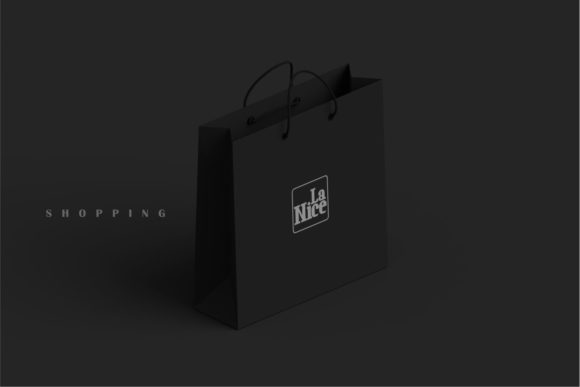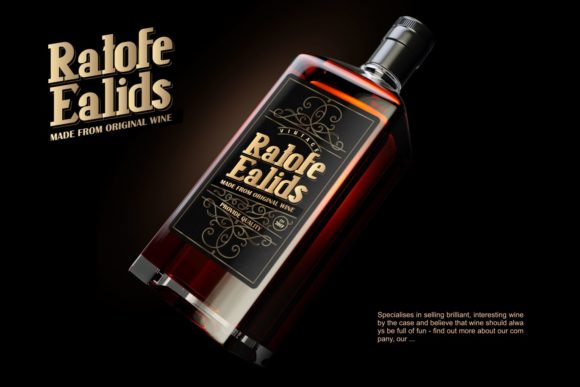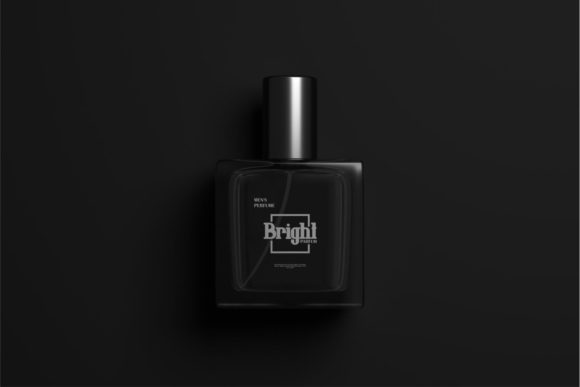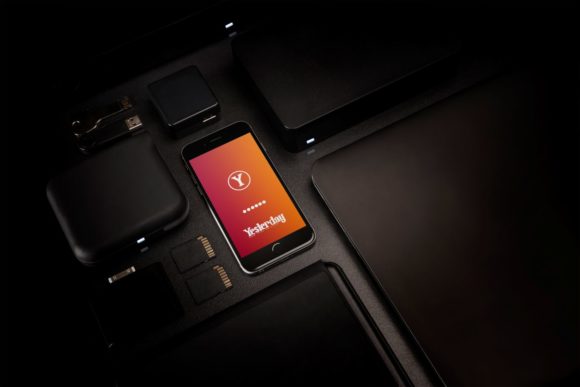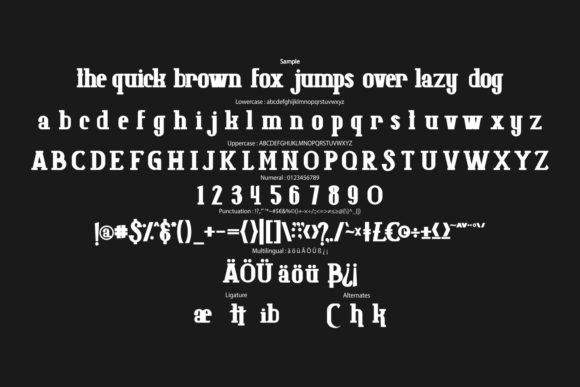
Introducing Colbad Font: A Timeless Serif Typeface with a Vintage Twist
In the world of typography, fonts play a crucial role in conveying the tone and personality of a design. For designers and crafters looking for a typeface that exudes elegance, nostalgia, and a touch of playfulness, Colbad Font is an excellent choice. This distinct serif font has been gaining popularity for its unique blend of classic and modern elements, making it perfect for a wide range of design projects.
The Characteristics of Colbad Font
Colbad Font is a serif typeface that boasts a neat and beautiful arrangement of letters. Its elegant design makes it an ideal choice for formal designs, such as luxury branding, high-end product packaging, and sophisticated editorial content. However, its playful and nostalgic feel also lends itself well to non-formal designs, like creative crafts, DIY projects, and social media graphics.
Aesthetic Appeal
One of the standout features of Colbad Font is its incredible vintage aesthetic. The font’s design is reminiscent of classic typography from the past, evoking a sense of nostalgia and timelessness. The carefully crafted letters and subtle serif details work together to create a visually appealing and harmonious design that will elevate any project.
Colbad Font’s versatility is another one of its key strengths. Its elegant and refined design makes it suitable for a wide range of applications, from:
- Luxury branding and packaging
- Editorial content, such as magazines and newspapers
- Creative crafts, like handmade cards and invitations
- Social media graphics and digital marketing materials
- Web design and development projects
Why Choose Colbad Font?
With so many fonts available, why choose Colbad Font for your design projects? Here are a few compelling reasons:
- Unique and distinctive design: Colbad Font stands out from more generic fonts, offering a unique and memorable visual identity.
- Elegant and refined: The font’s elegant design makes it perfect for formal and high-end designs.
- Playful and nostalgic: Colbad Font’s playful and nostalgic feel adds a touch of personality to any design.
- High-quality and legible: The font is designed to be clear and legible, ensuring that your message is communicated effectively.
Tips for Using Colbad Font
To get the most out of Colbad Font, here are a few tips to keep in mind:
- Use it as a headline font: Colbad Font is perfect for headlines and titles, where its elegant and playful design can shine.
- Pair it with complementary fonts: Combine Colbad Font with other fonts to create a harmonious and visually appealing design.
- Experiment with different sizes and colors: Don’t be afraid to try out different sizes and colors to add depth and interest to your design.
Colbad Font is a unique and elegant serif typeface that offers a perfect blend of classic and modern elements. Its playful and nostalgic feel, combined with its neat and beautiful arrangement of letters, makes it an excellent choice for designers and crafters looking for a font that will elevate their design projects. Whether you’re working on a formal or non-formal design, Colbad Font is sure to deliver an incredible vintage aesthetic that will leave a lasting impression.